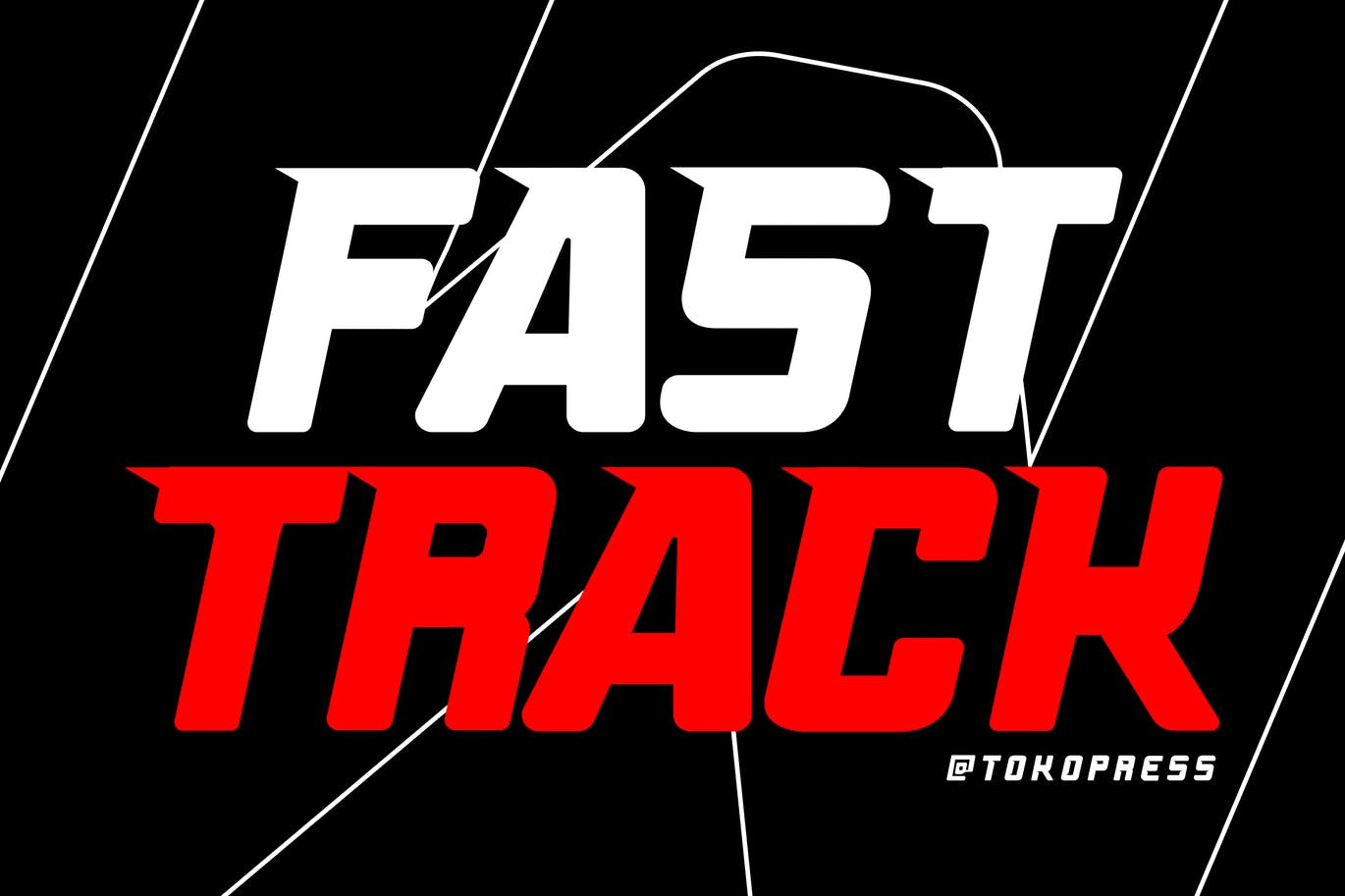
FAST TRACK - Racing Gaming Font
FAST TRACK - racing gaming font
It speaks speed, racing, and roaring machine with the highest RPM you can get on the asphalt. With a powerful, strong sharp corner, and a solid shape with cutout and pointy corner to make it go whooos, it will make FAST TRACK emphasize the racing spirit inside your designs.
Suit perfectly for Racing theme online games, poster, movie title, fast food menu, magazine, youtube covers, youtube thumbnails, social media page covers and so on...